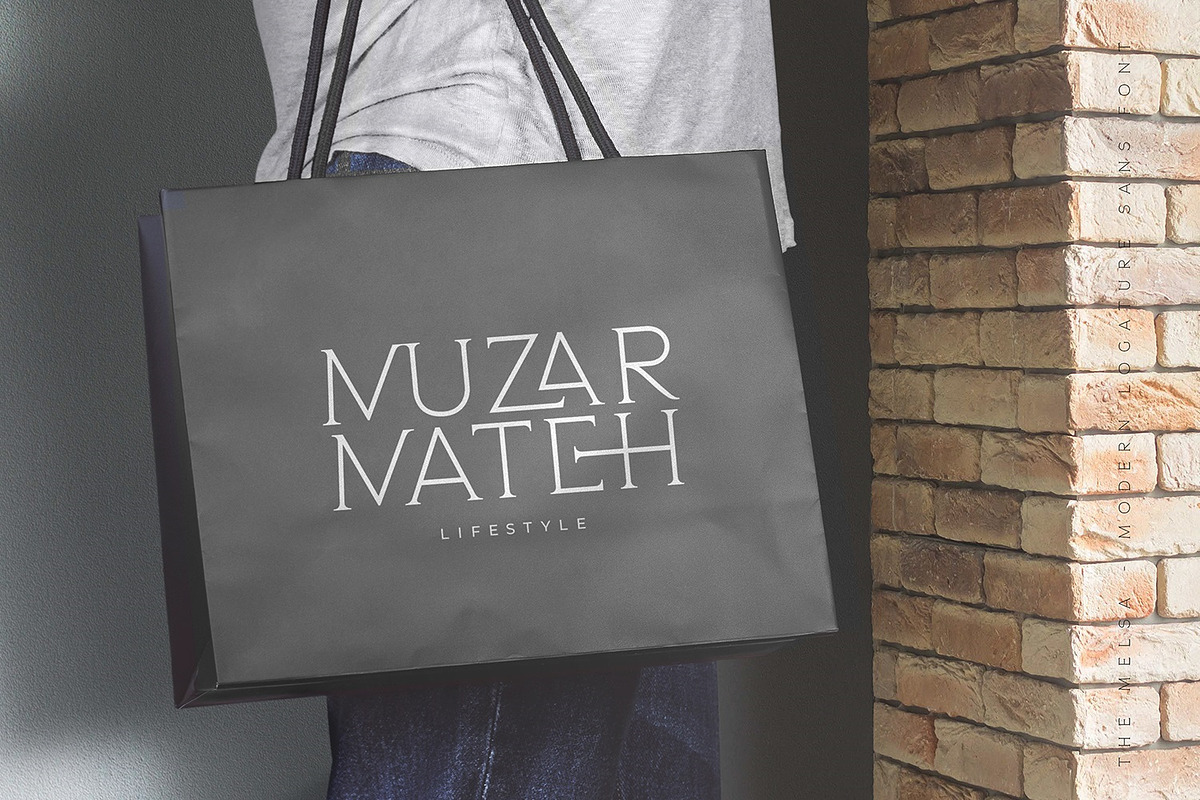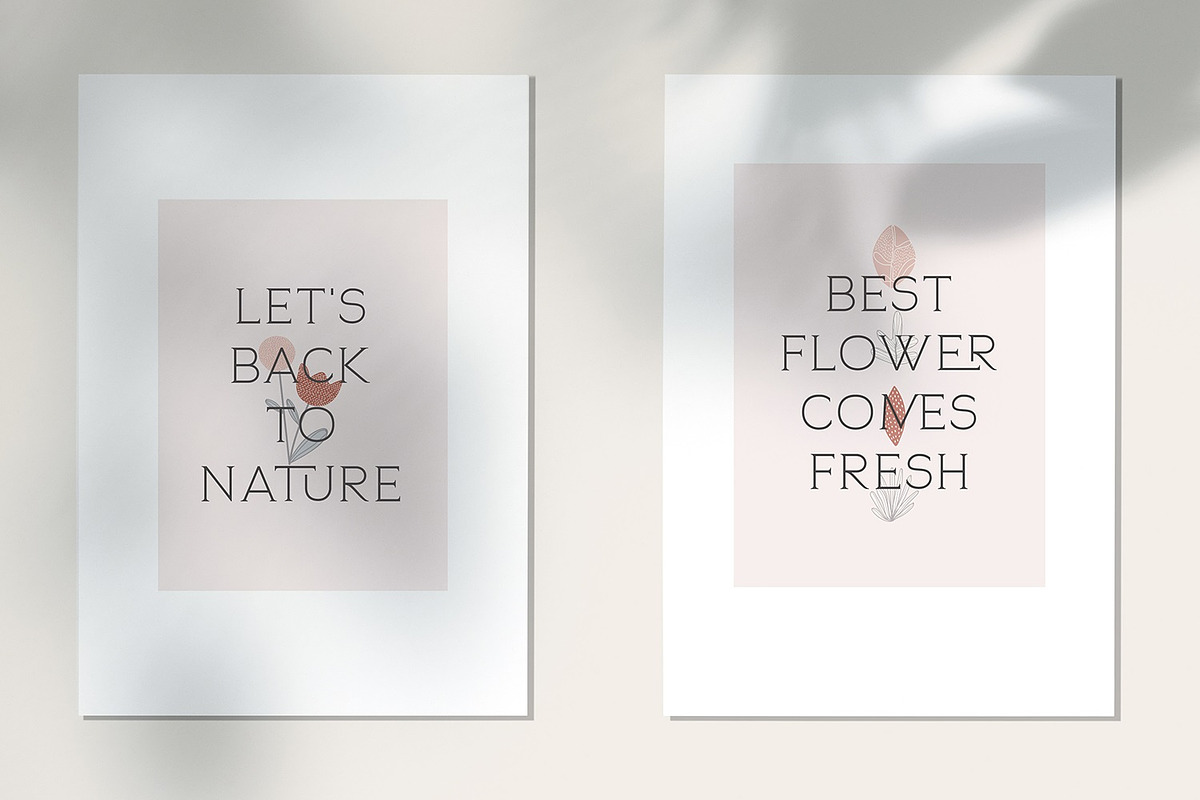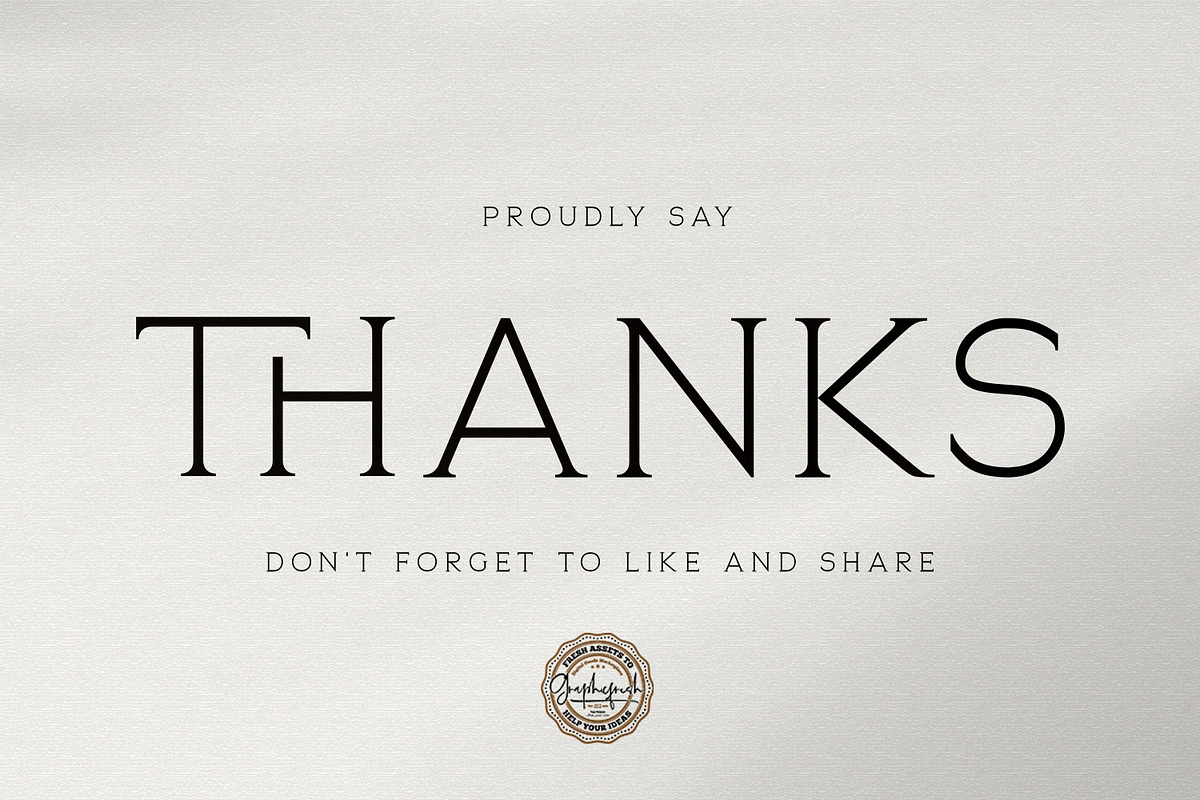
The Melsa - Modern Ligature Sans
The Melsa - Modern Ligature Sans and minimalist character! it's perfect for logos, name card, magazine layouts, invitations, headers, or even large-scale artwork.
1. Brown Austin, Regular, Bold and Italic version, sans serif font (ALL CAPS), numerals and more of symbols.
5. More Ligatures